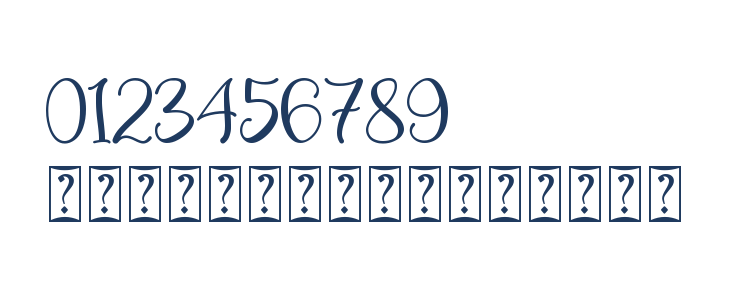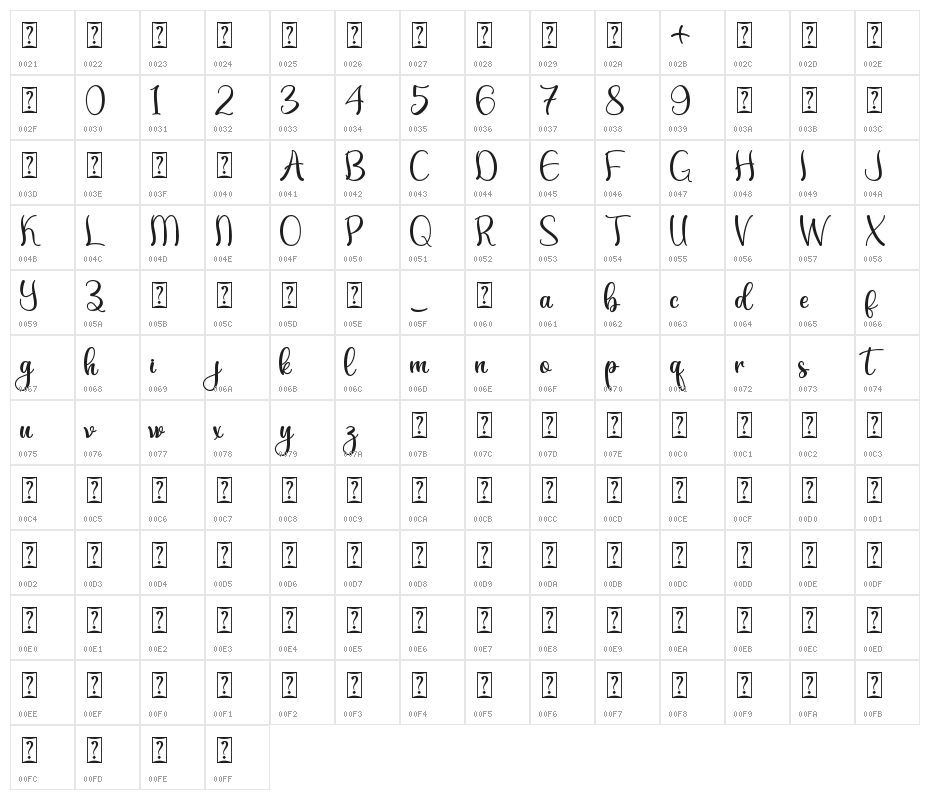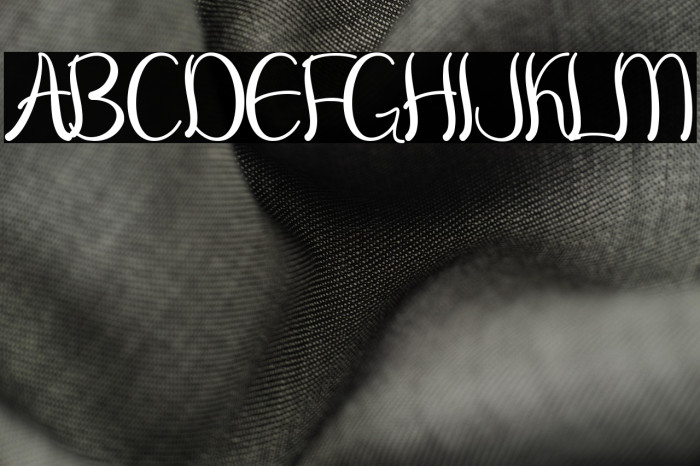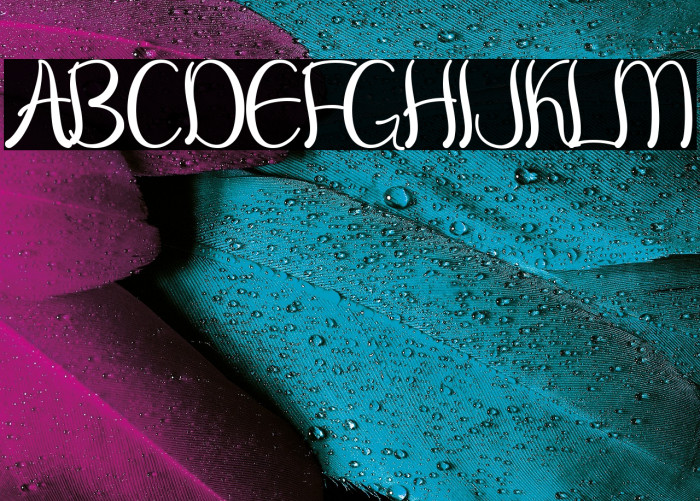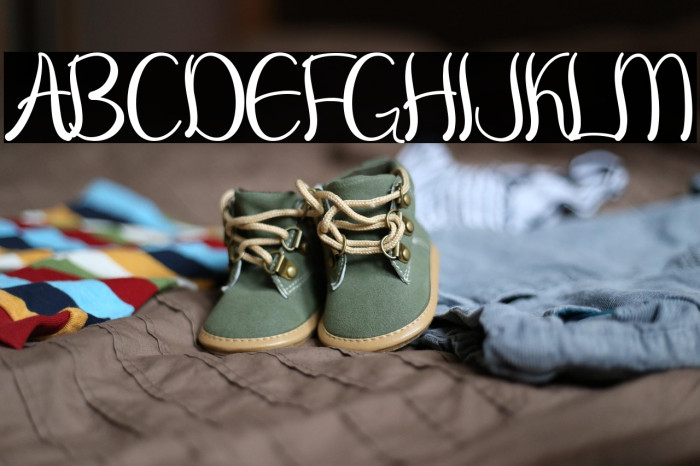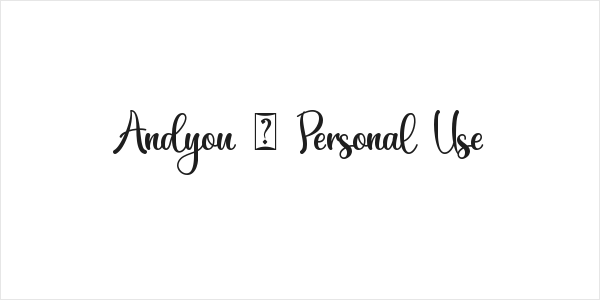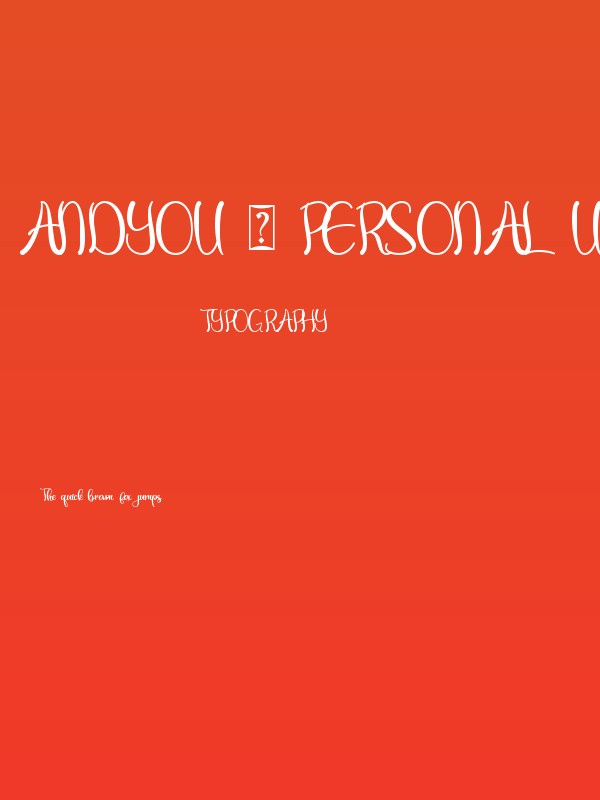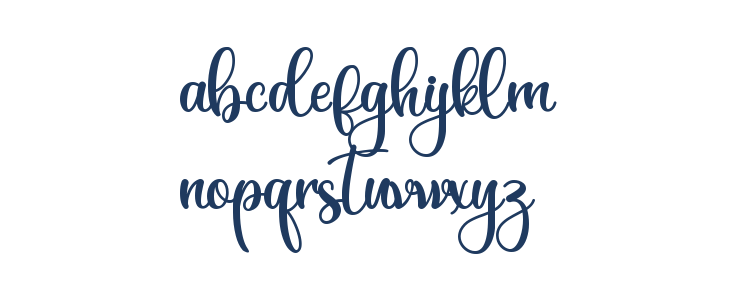
Andyou - Personal Use Font
Andyou - Personal Use Description
This font features a playful and whimsical script style with a handwritten appearance. The letters are connected, giving it a fluid and continuous look. The uppercase letters are bold and slightly exaggerated, while the lowercase letters maintain a consistent flow with elegant loops and curves. The numbers are distinct and maintain the same playful style, making them easily recognizable. The font's overall design is decorative, with a touch of elegance, suitable for creative and informal projects.